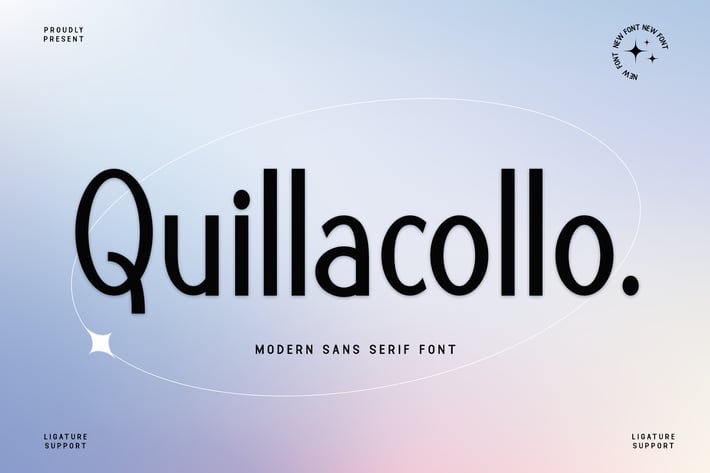
Quillacollo - A Modern Sans Serif Font
Quillacollo is a sleek and contemporary sans serif font designed to elevate your projects with its clean lines and modern aesthetics. Perfect for branding, web design, and print materials, Quillacollo offers versatility and readability in every use case. Its balanced proportions and minimalistic design make it an ideal choice for creating elegant logos, engaging headlines, and sophisticated body text.
Designed with precision and attention to detail, Quillacollo stands out with its harmonious letterforms and smooth curves. Whether you're working on a corporate identity, a fashion magazine, or a digital interface, this font adds a touch of sophistication and professionalism to your work. Its extensive character set ensures compatibility with multiple languages, providing a seamless experience for global audiences.
Embrace the future of design with Quillacollo, where modernity meets functionality. Its timeless appeal and versatile nature make it a must-have in any designer's toolkit. Elevate your creative projects with Quillacollo and make a lasting impression with its distinctive and polished look.